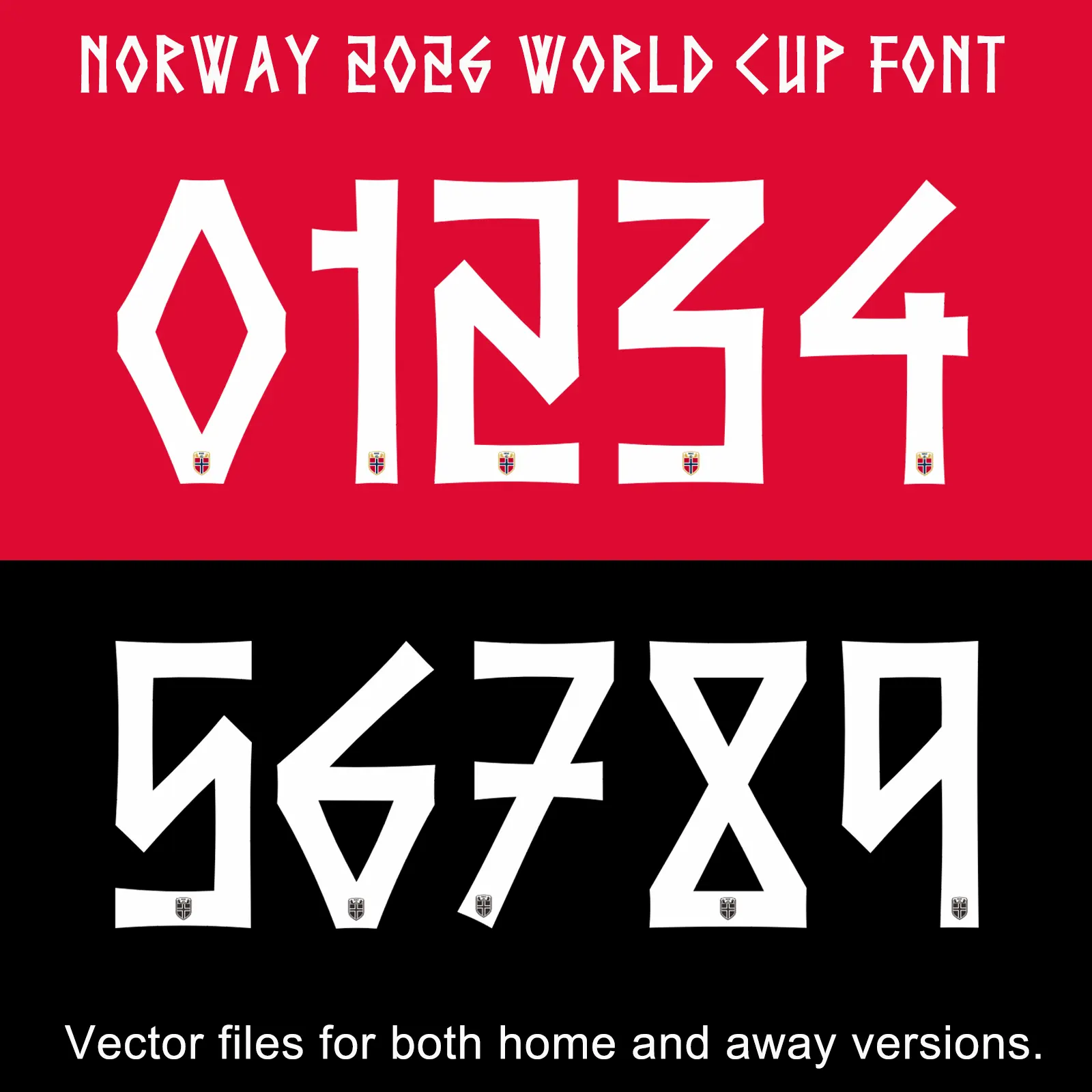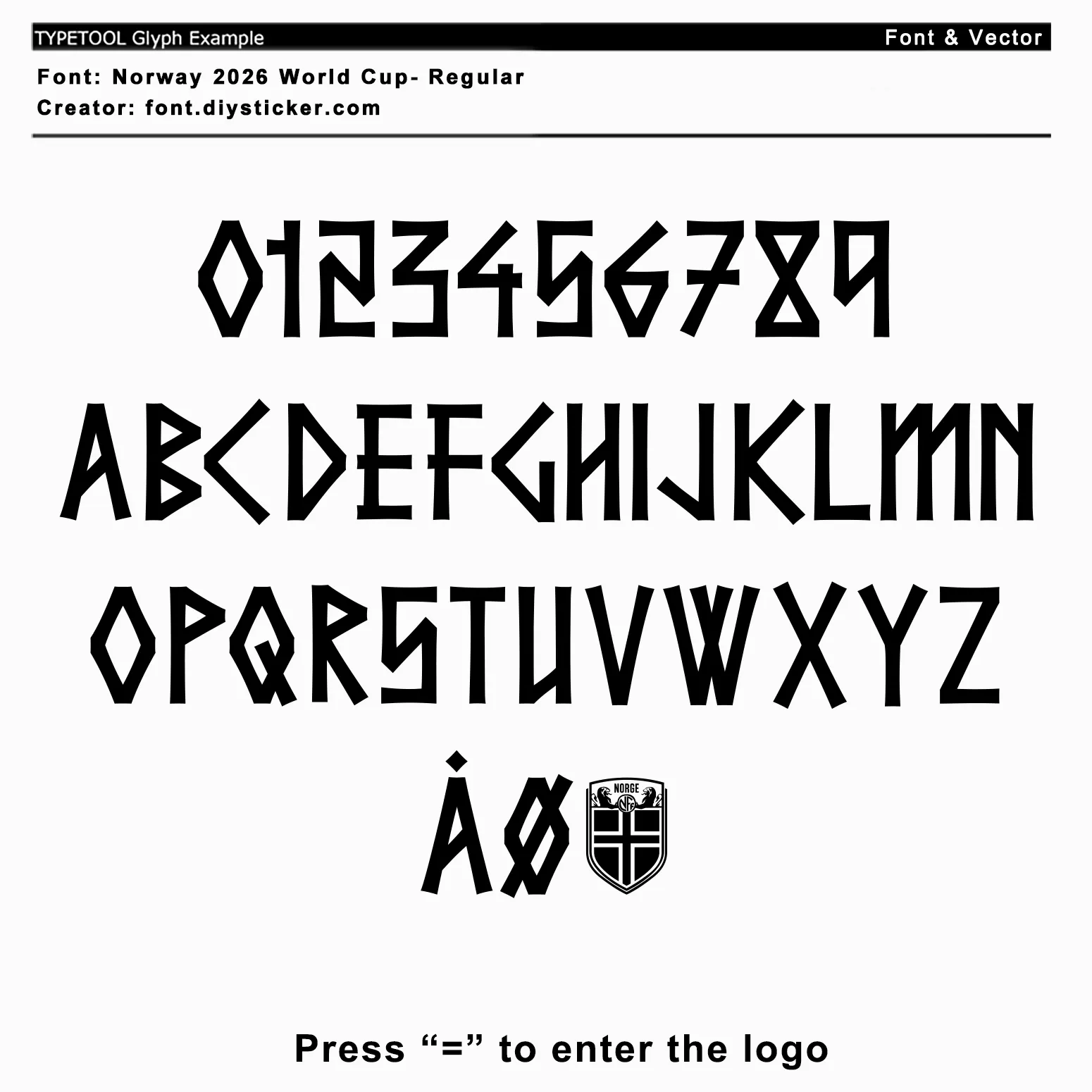
π³π΄ Authentic Norway 2026 World Cup Font
Capture iconic Nordic football style with this exact-match Norway 2026 World Cup Font. This official recreation typeface is identical to the lettering and numbering used on Norwayβs 2026 World Cup home and away national team jerseys. Ideal for professional jersey printers, graphic designers, Norway football fans, and DIY custom kit creators.
β¨ Exclusive Font Features
- Full uppercase A-Z alphabet + special Scandinavian accented characters (Γ , Γ)
- Full set of numbers 0-9 with tiny Norway national team crest detail
- Built-in official Norway badge glyph (press
=to insert) - Unique bold Nordic geometric jersey typography style
- Separate dedicated versions for home kit and away kit designs